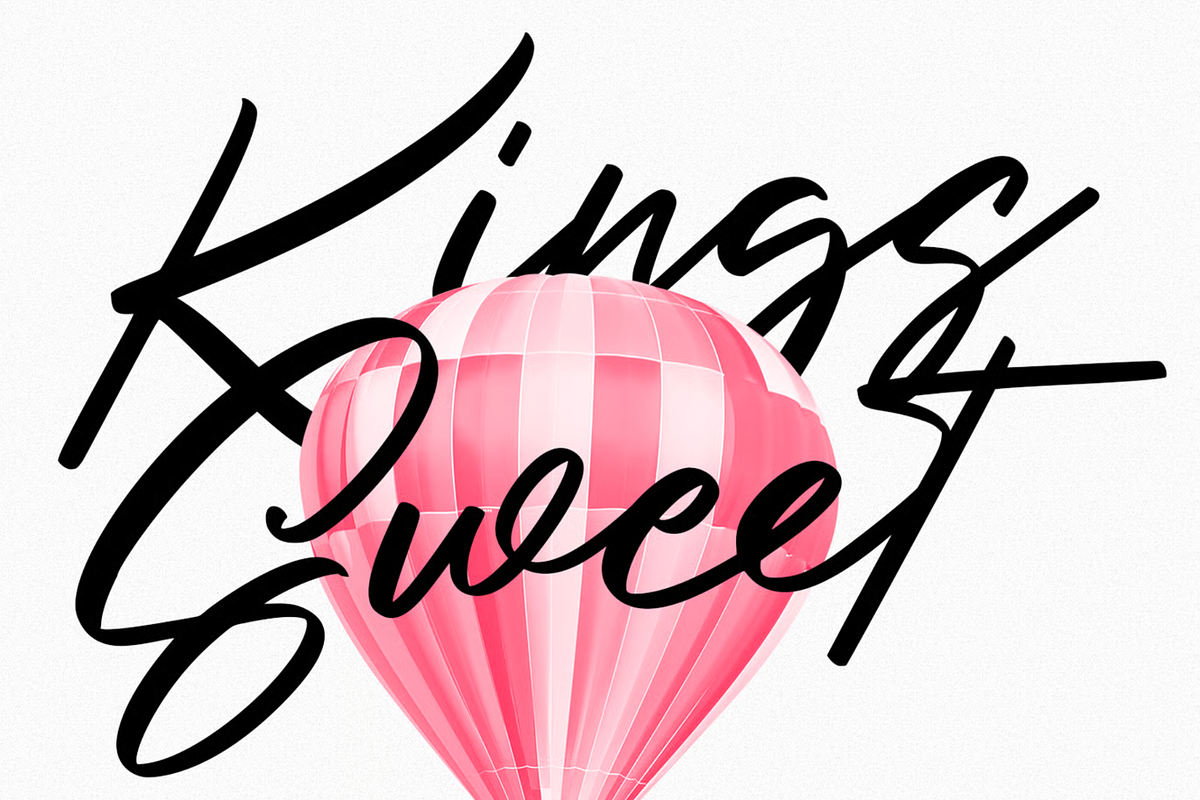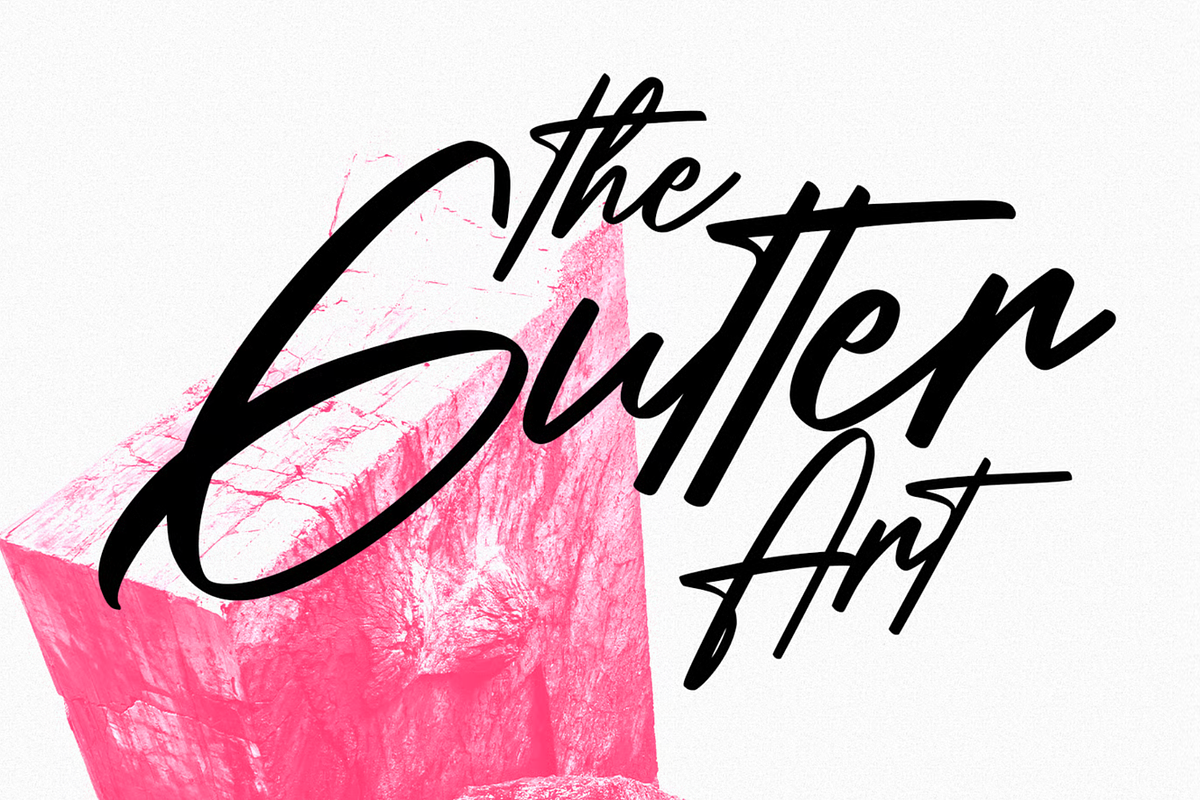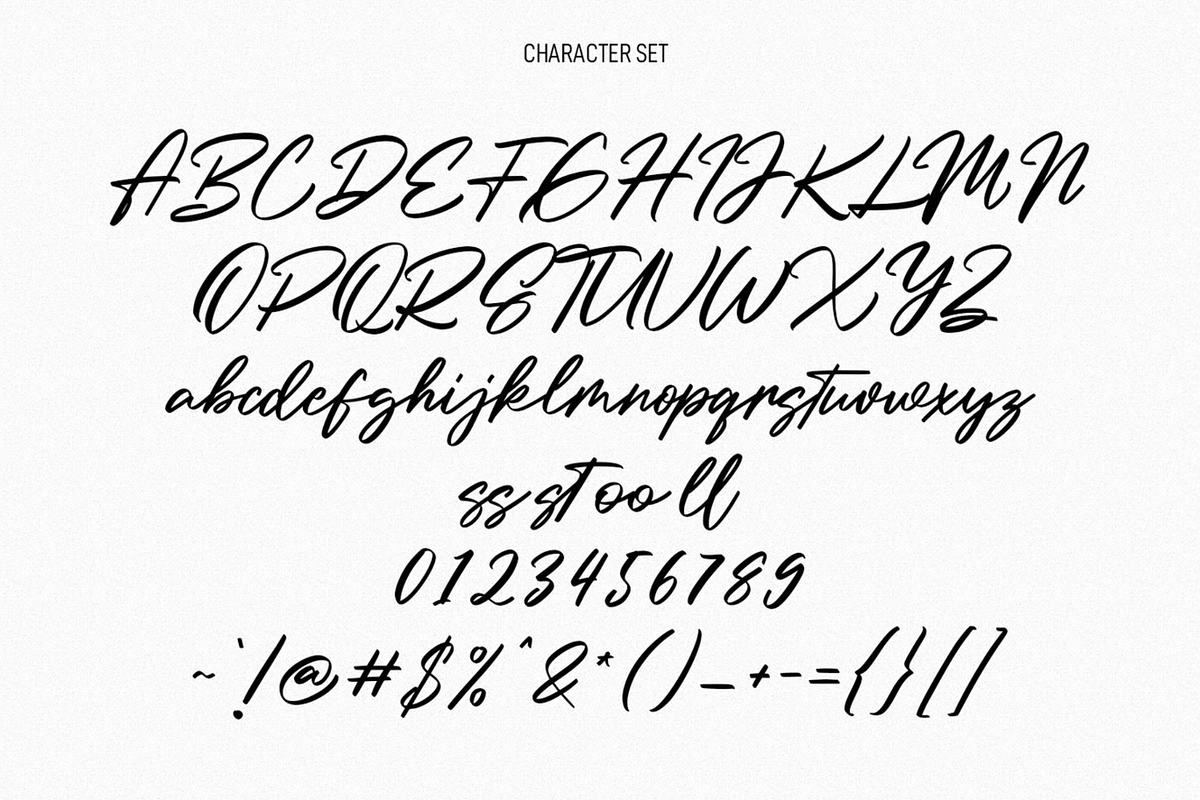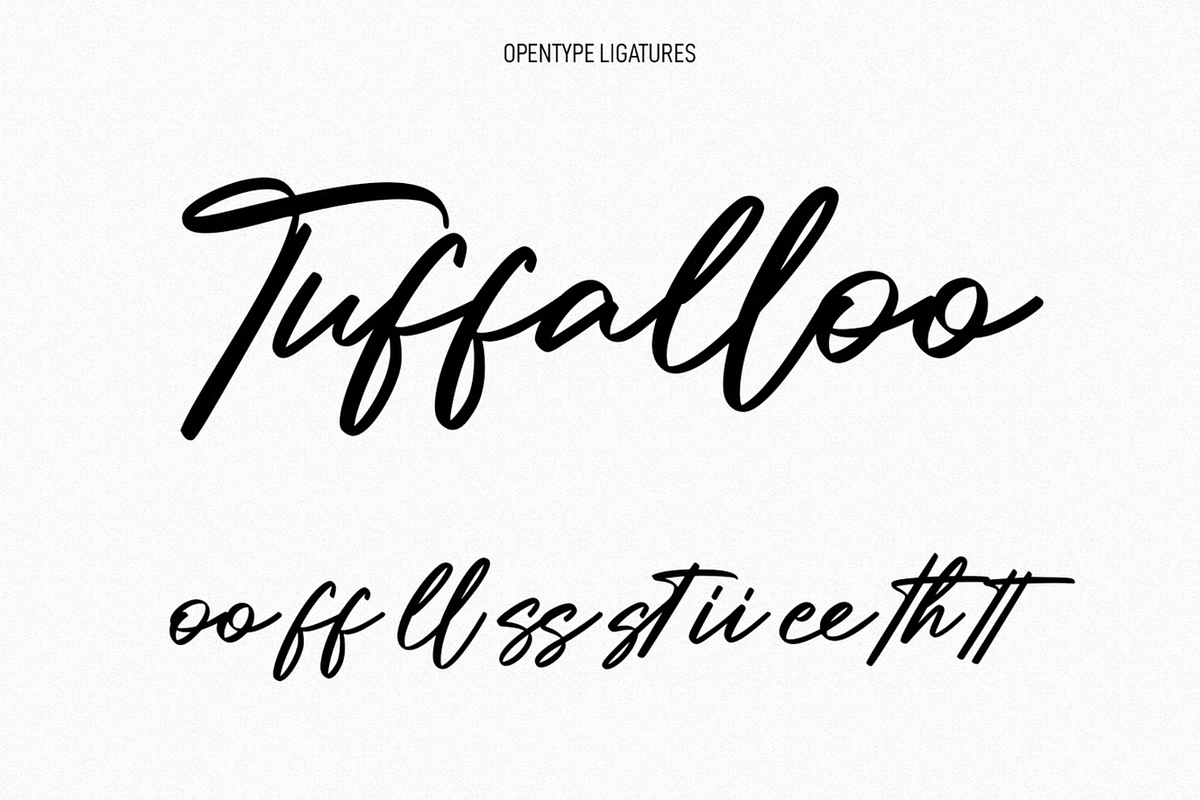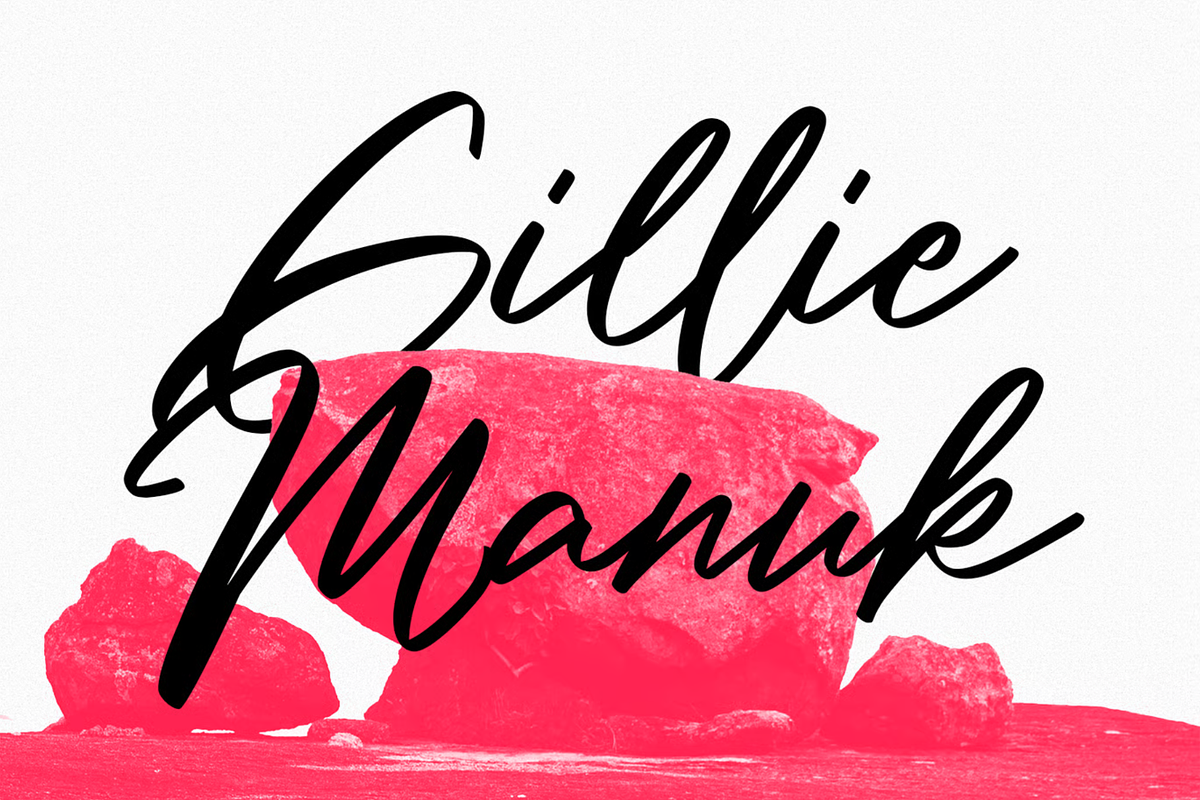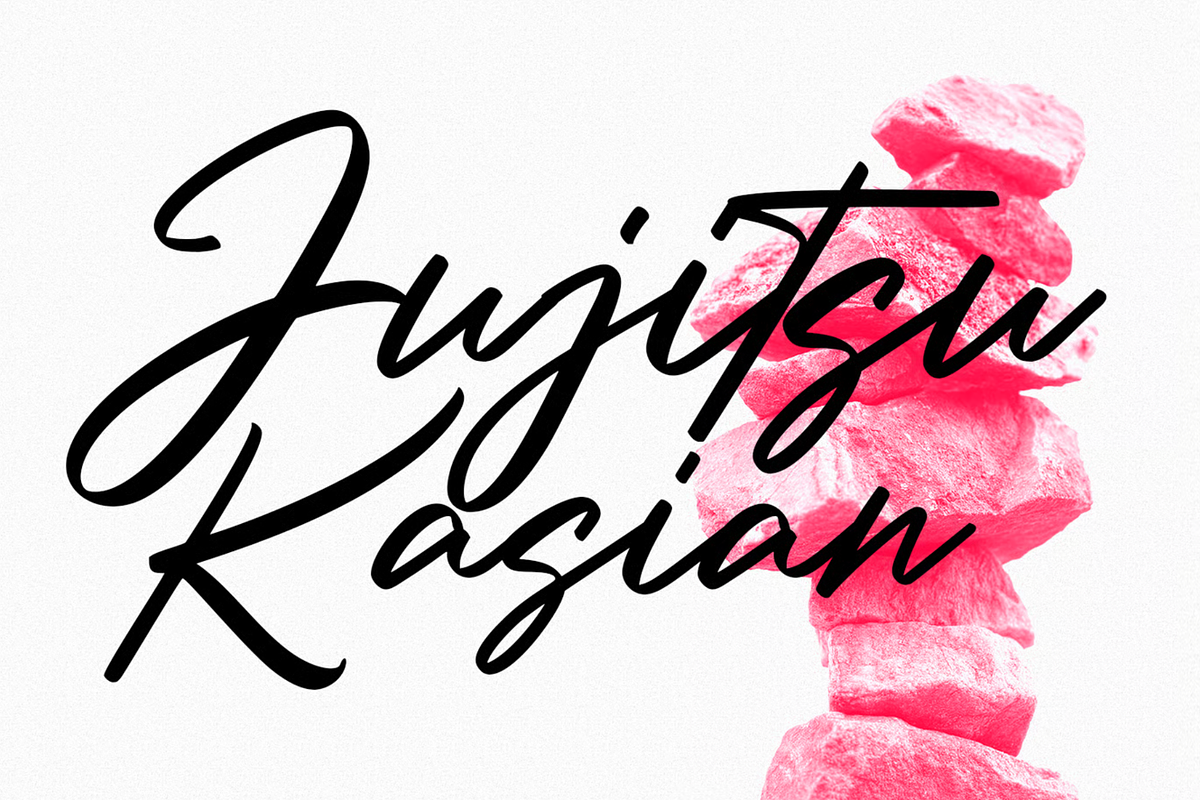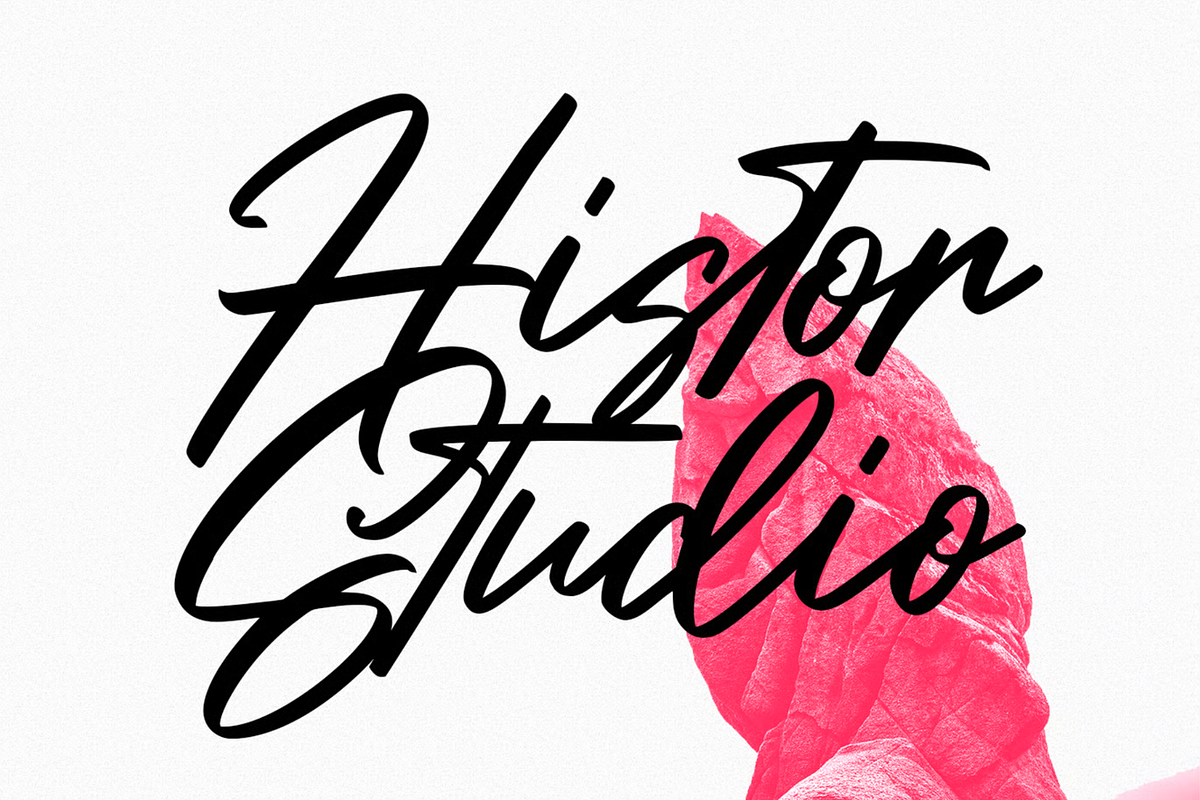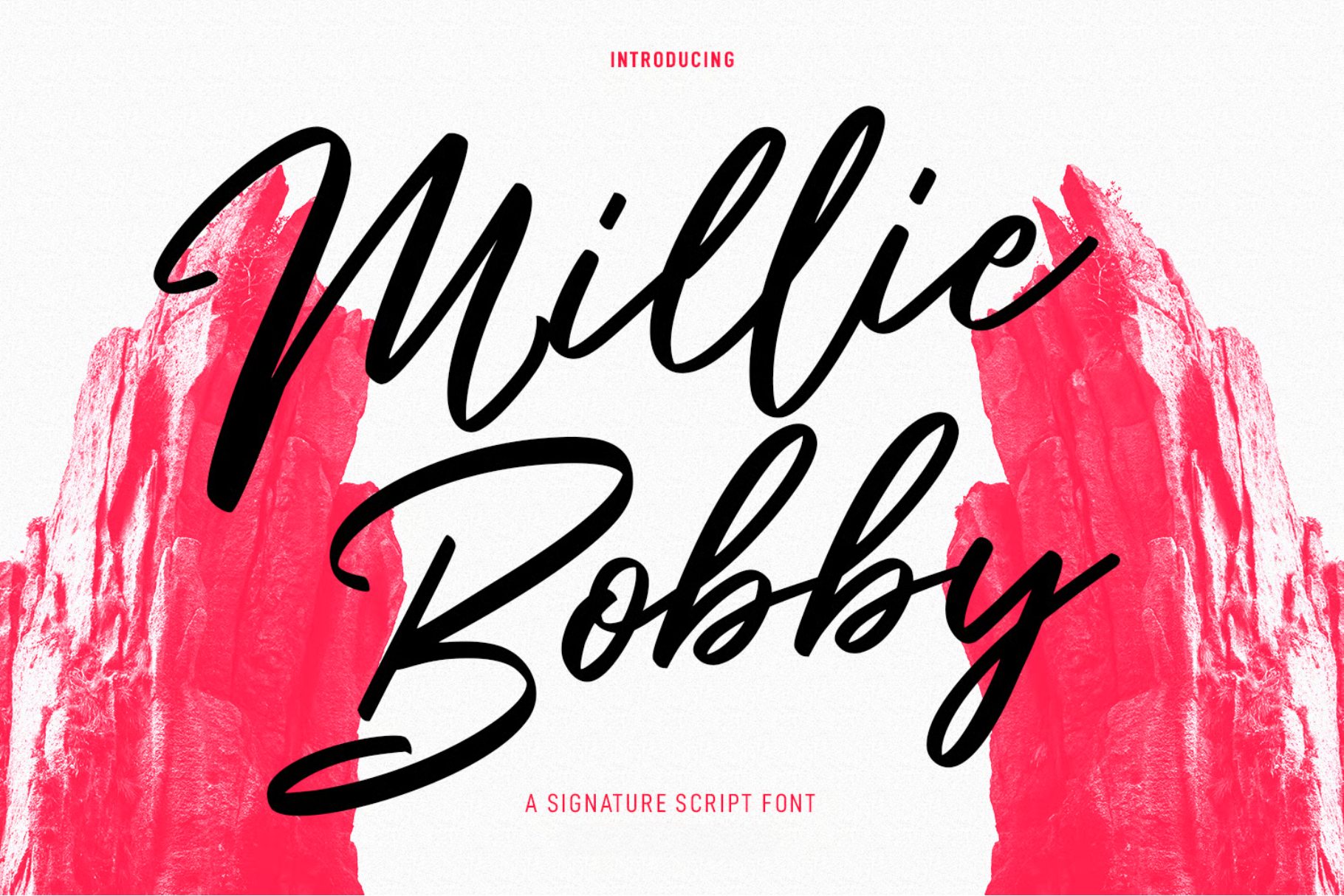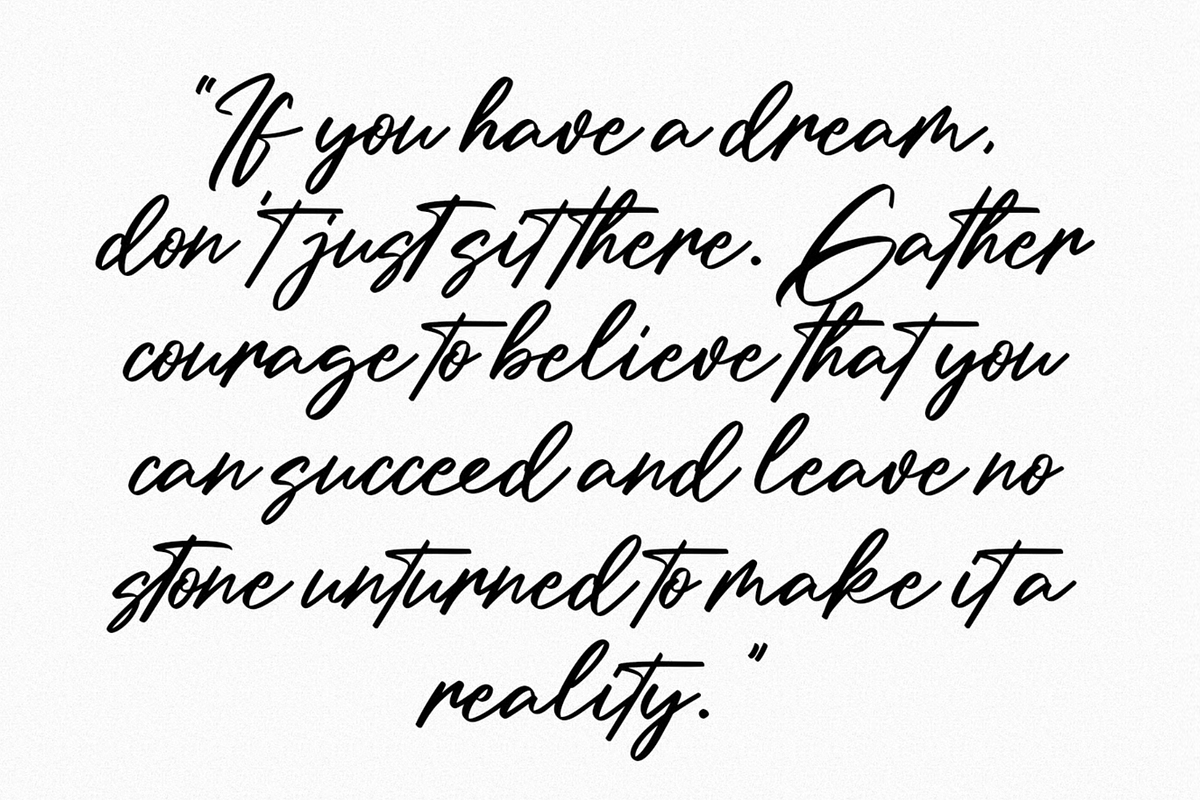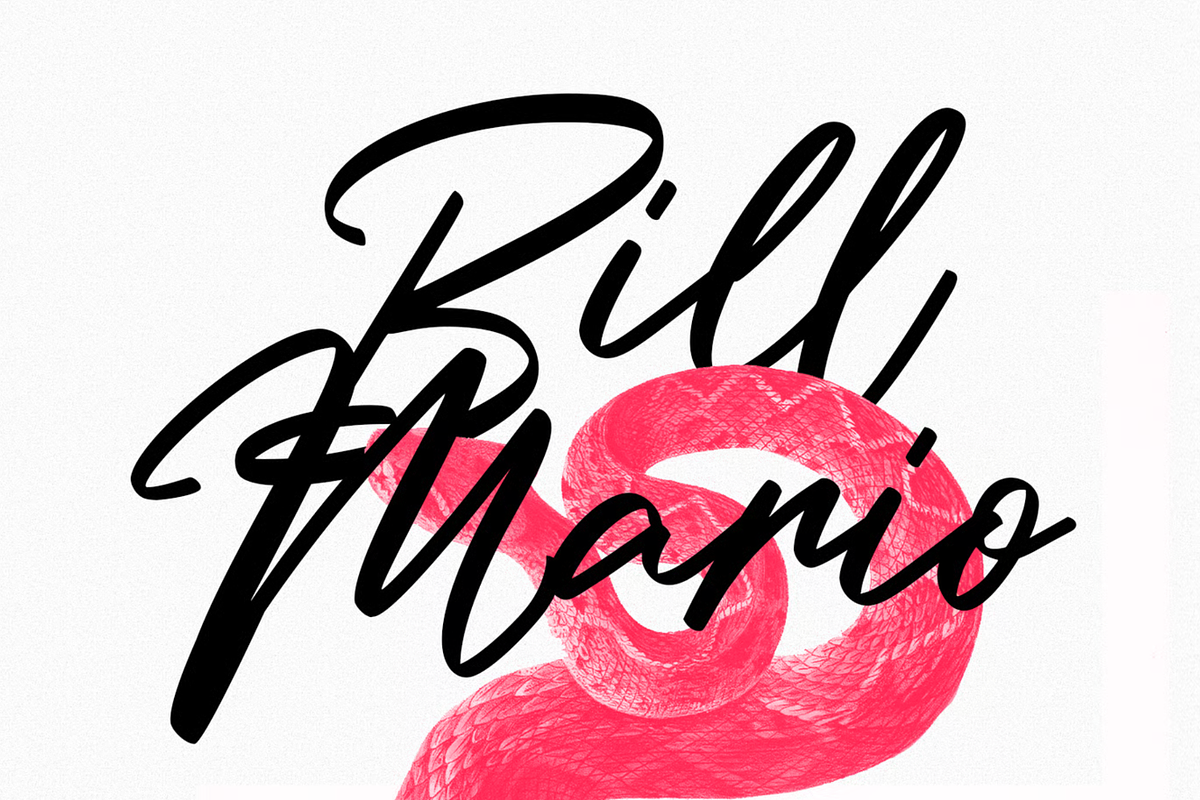
Millie Bobby Signature Script Font
Millie Bobby is a fancy casual signature script font. With high contrast stroke, fun character with a bit of ligatures and alternates. To give you an extra creative work. Millie Bobby font support multilingual more than 100+ language. This font is good for logo design, Social media, Movie Titles, Books Titles, a short text even a long text letter and good for your secondary text font with sans or serif. Make a stunning work with Millie Bobby font.